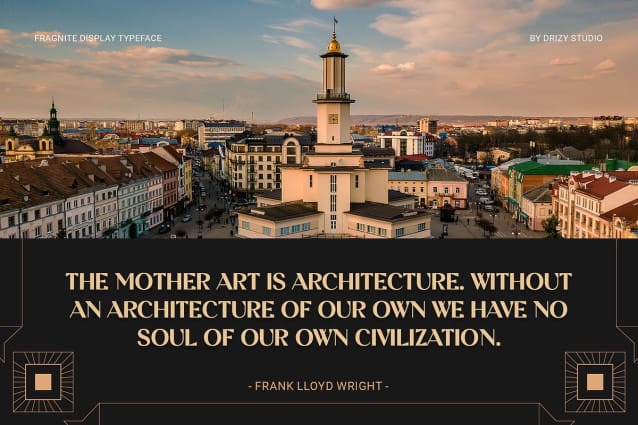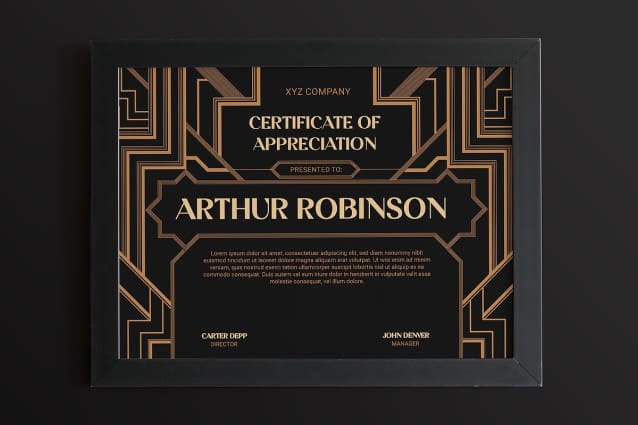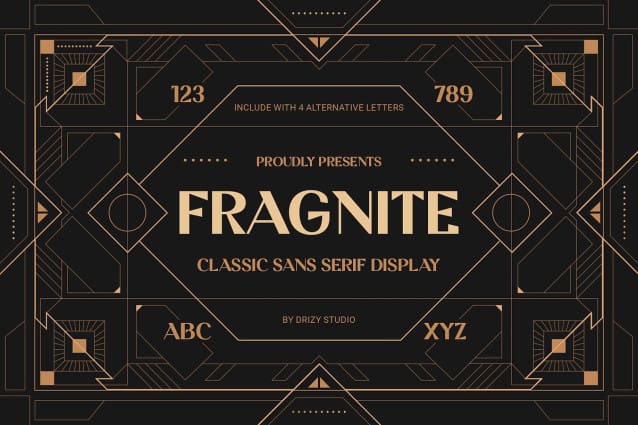
Fragnite Font
Fragnite Font – Classic Sans Serif Font. This font style is a celebration of simplicity, clarity, and versatility, making it a reliable choice for a wide range of design projects.
Fragnite features: Character Set Punctuation & Numbers Multilingual Support Alternates